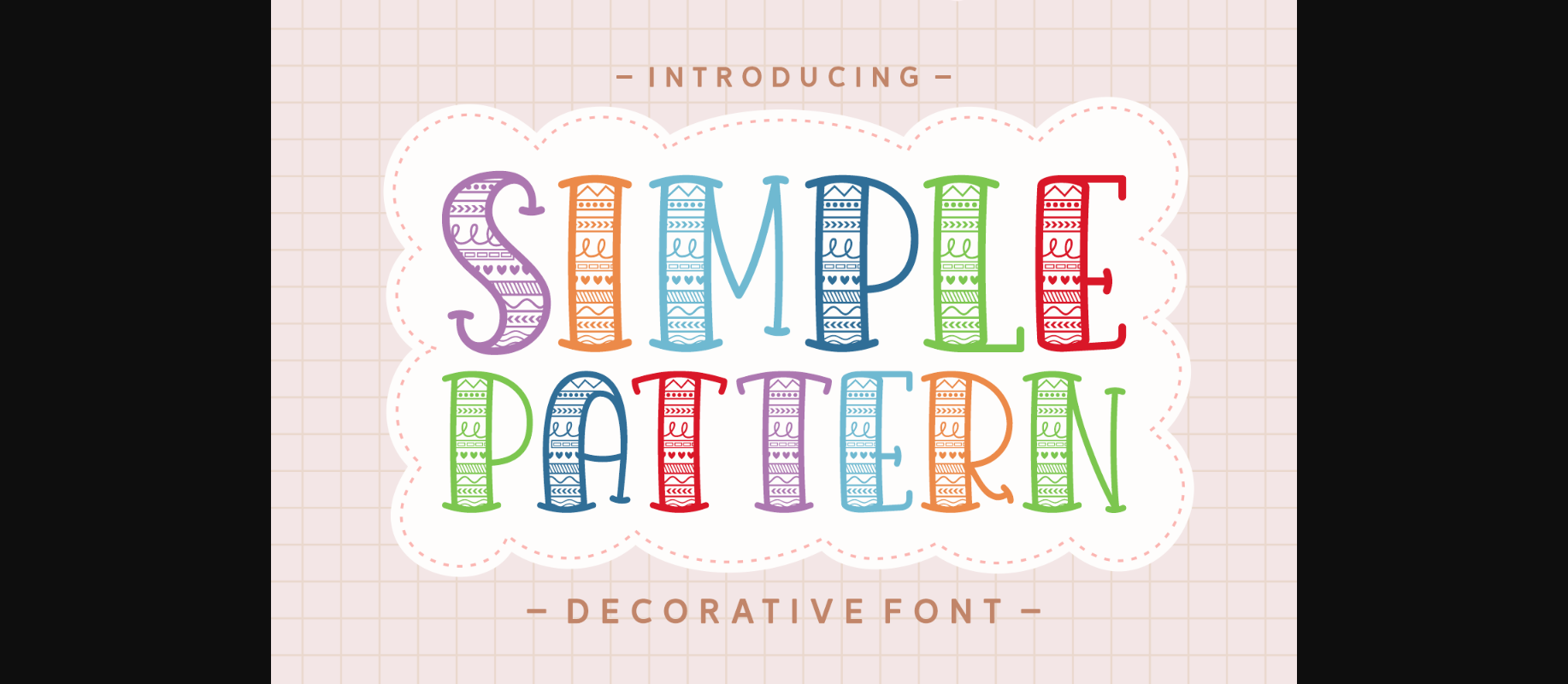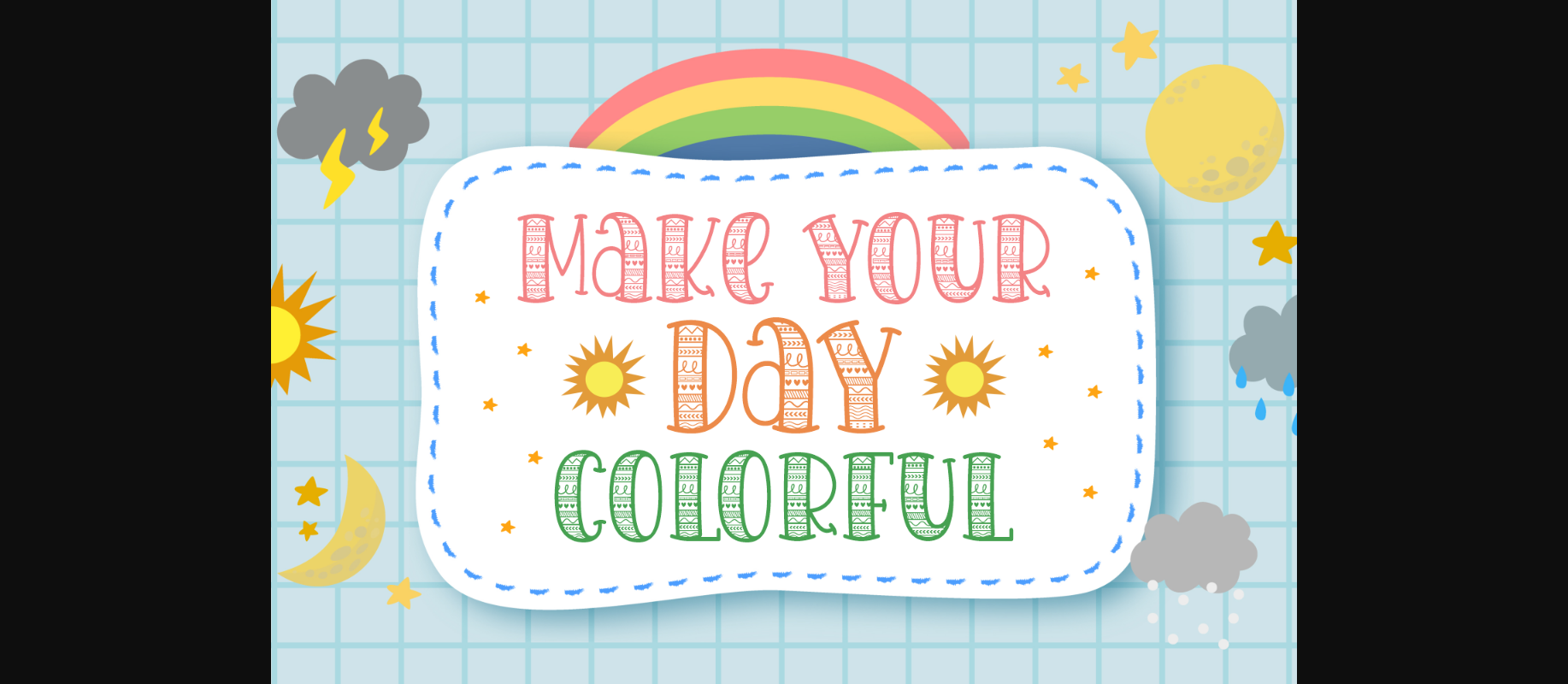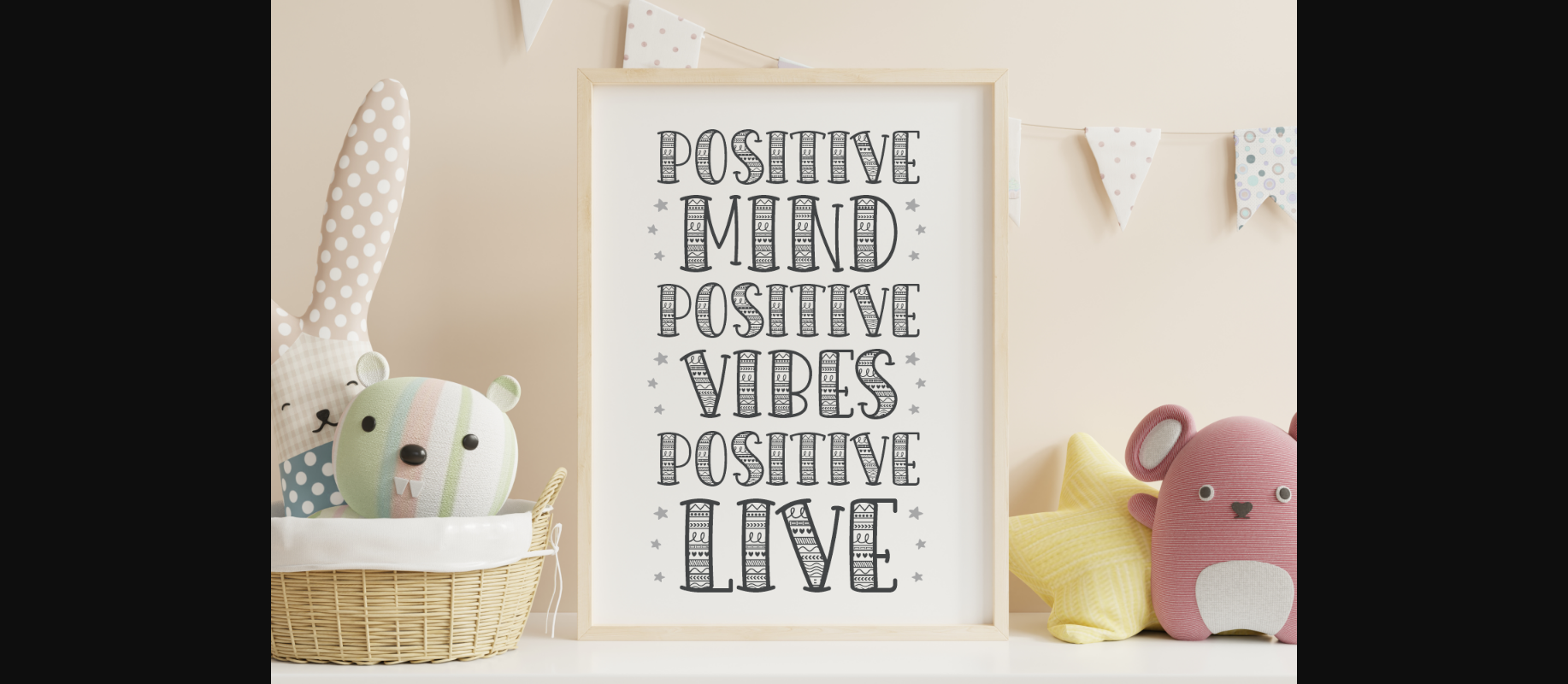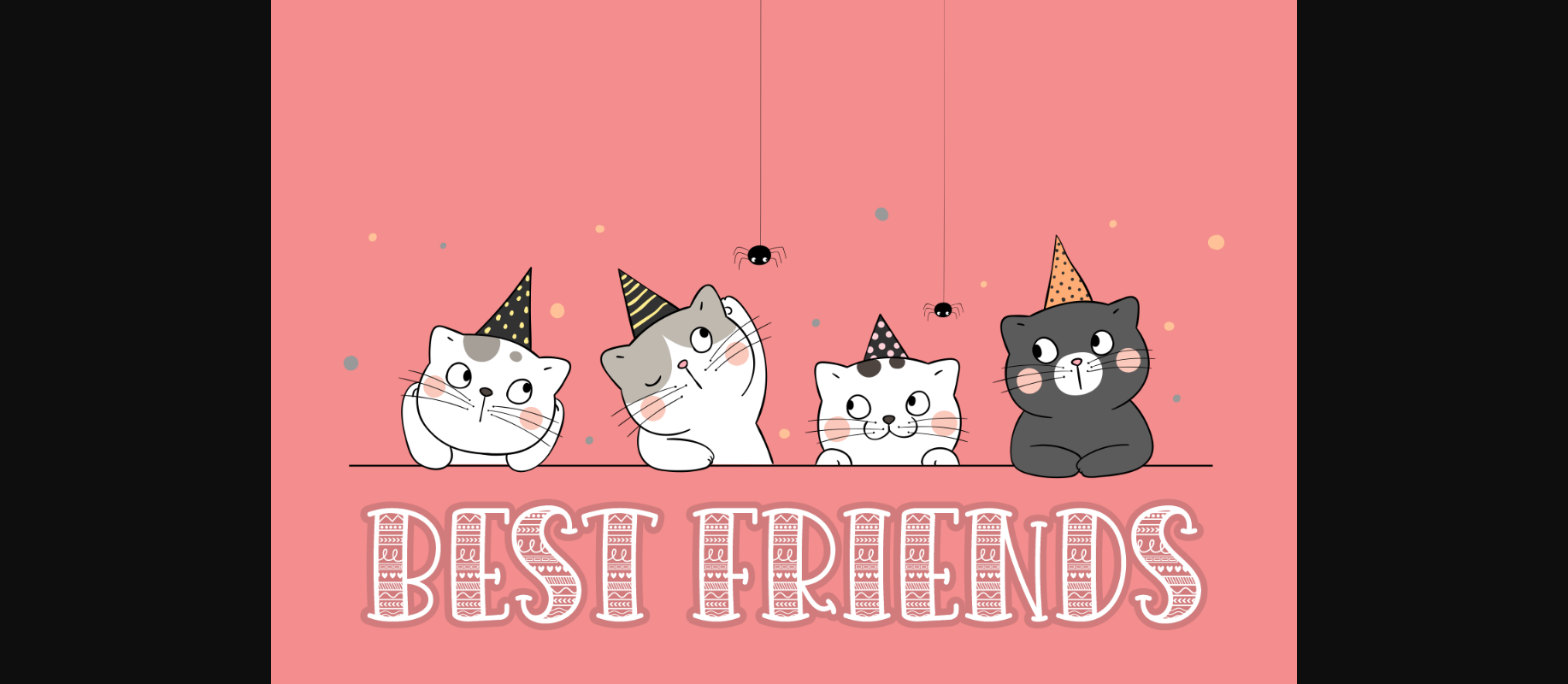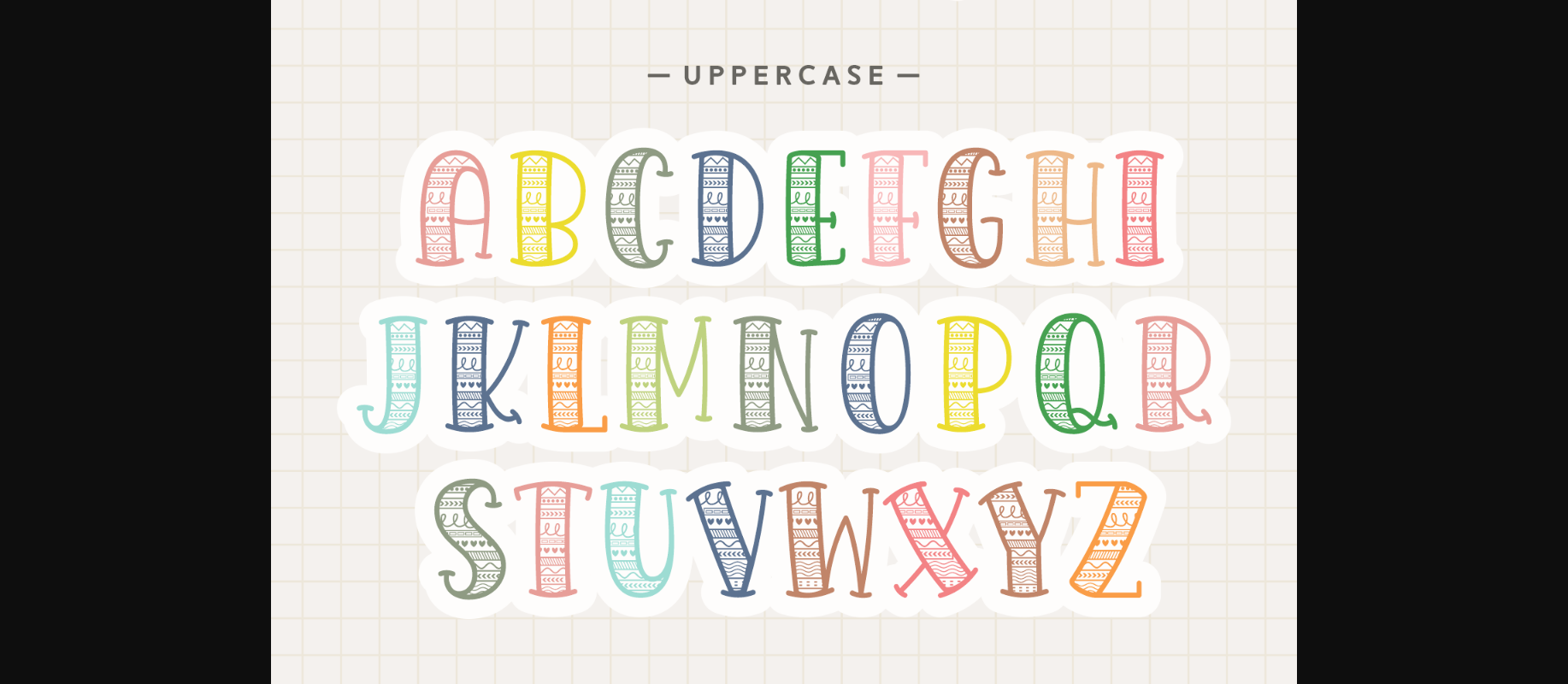
About Simple Pattern Font
Simple Pattern is a colorful and lovely decorative font that is the perfect choice for adding a touch of playfulness and vibrancy to any project. With its whimsical design and bright hues, this font is sure to capture attention and evoke a sense of joy. Perfect for invitations, branding, and anything that needs a pop of color and charm.